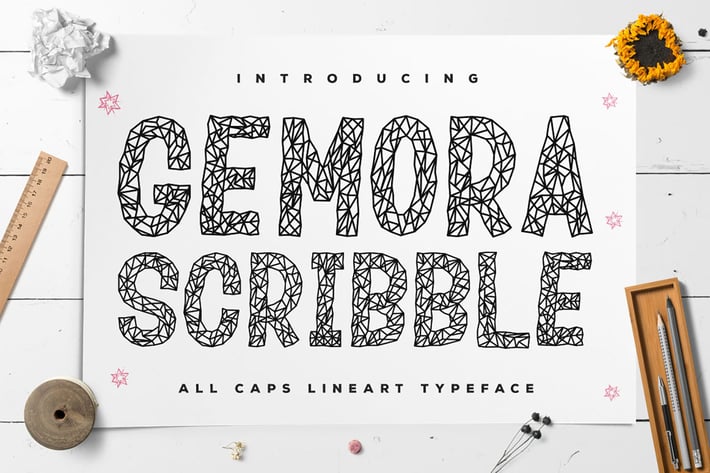
Gemora Scribble - Unique Display Font
Introducing Gemora Scribble Font. A playful quirky font. It has a unique and different style and will give your design a fun touch.
Gemora Scribble would be perfect for logos & branding, photography, watermark, social media posts, advertisements, invitation, product designs, label, stationery, wedding designs, product packaging, special events or anything that need handwriting taste.